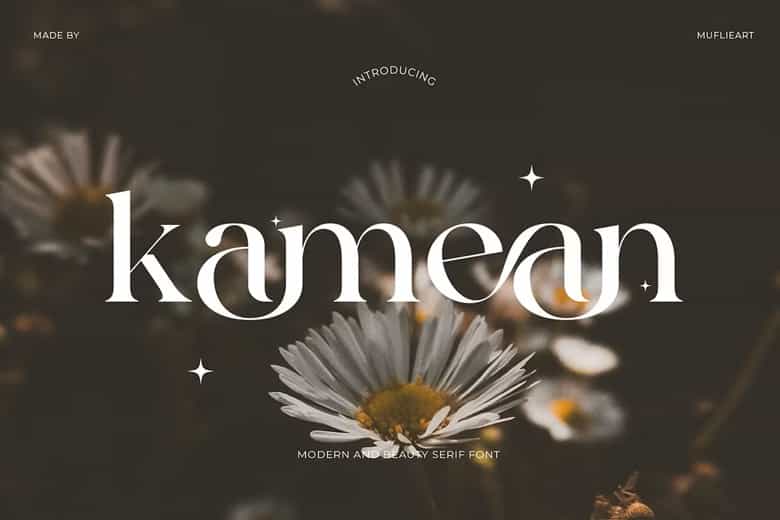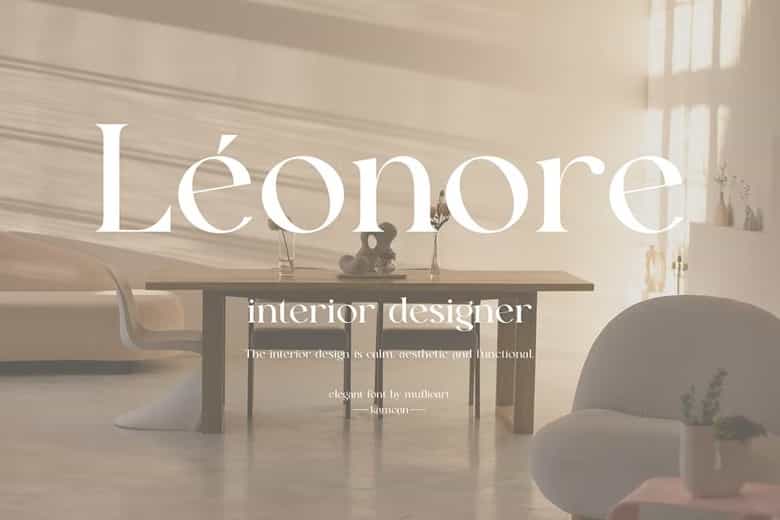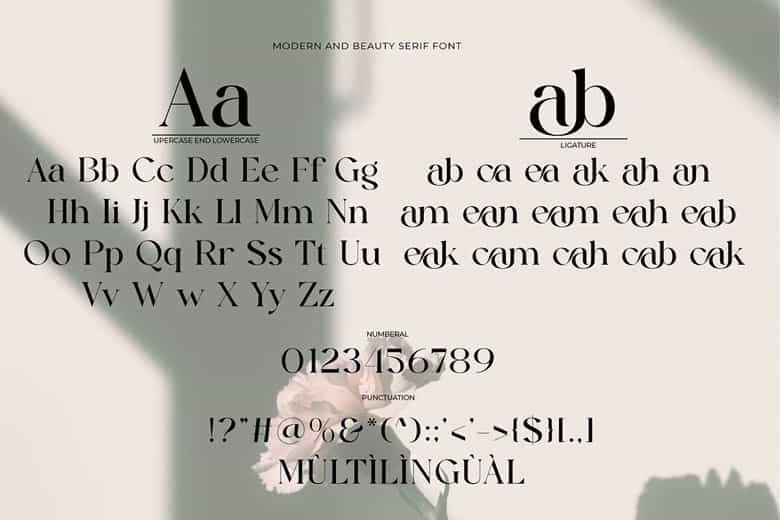
Kamean is a modern and beauty serif font. Kamean looks very neat and is extremely versatile, making it perfect to use for various projects like the websites, logos, brand identification, social media posts, wedding invites and the likes, as well as magazine designs.